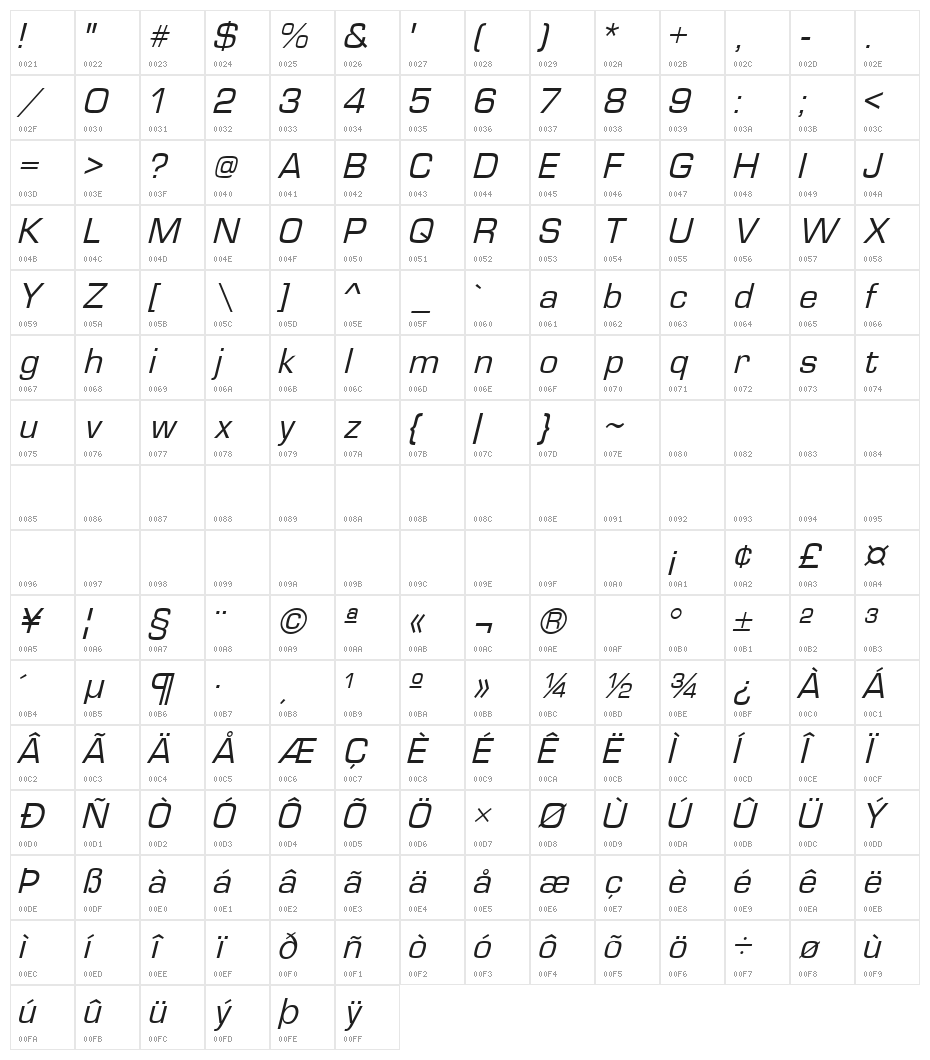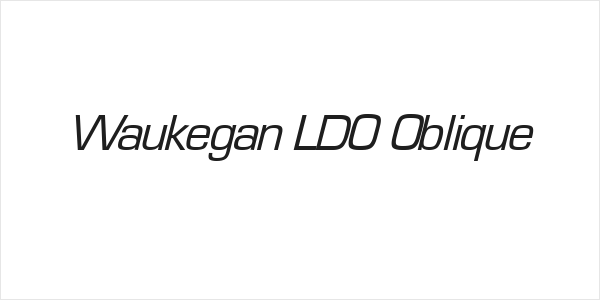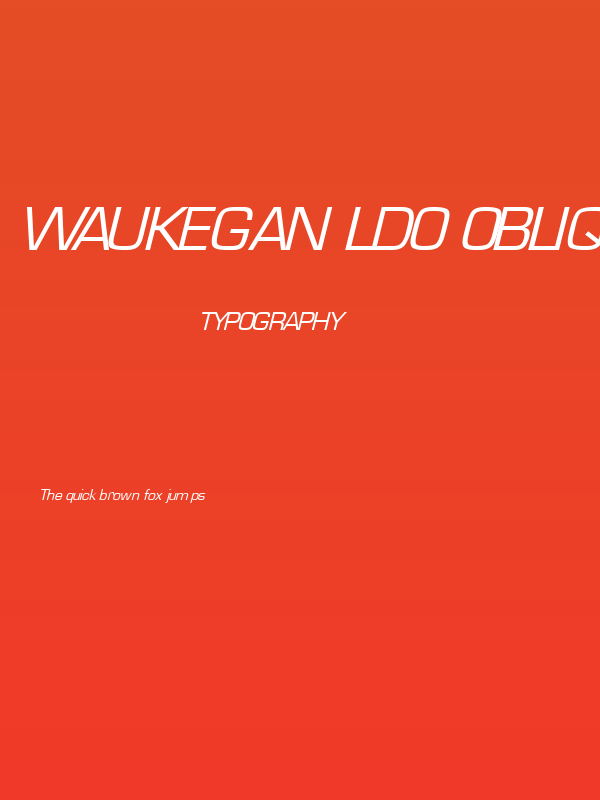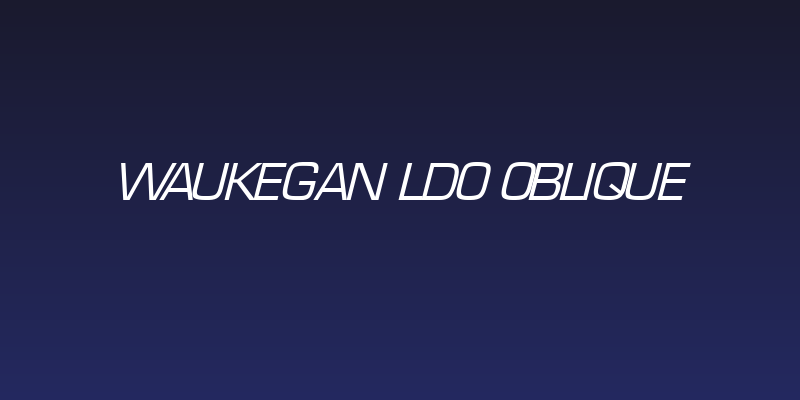
Waukegan LDO Oblique Font
Waukegan LDO Oblique Description
This font features a sleek, modern design with an oblique style, giving it a dynamic and forward-leaning appearance. The characters are elongated with a slight slant, providing a sense of motion and speed. The strokes are consistent in thickness, offering a clean and uniform look. The uppercase and lowercase letters maintain a harmonious balance, while the numerals and special characters are designed to complement the overall aesthetic. This font is ideal for projects that require a contemporary and professional touch.